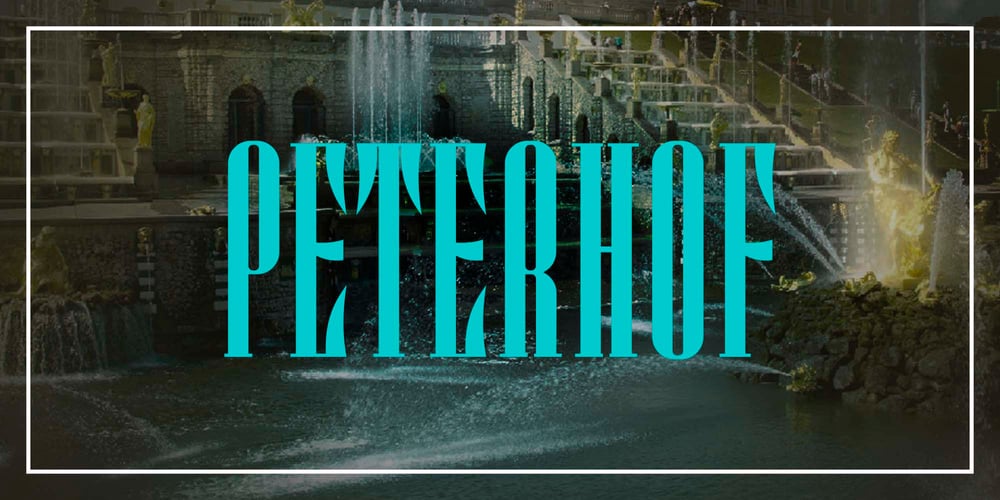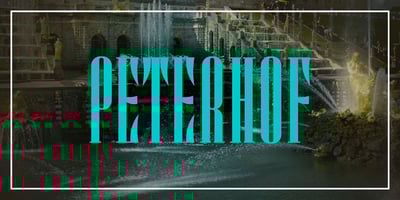
Peterhof
Peterhof font
Peterhof Font Family was designed by Marina Zuikova and published by Favorite Fonts. Peterhof contains 4 styles and family package options. Have you got a dream? I dream of visiting Peterhof.The palace and park ensemble with beautiful architecture, sculptures, and fountains. It is no less beautiful on the inside than on the outside. Huge halls, windows, columns, paintings. Everything is very refined, elegant, and beautiful. Looking at the photos, I enjoy and admire the views. They inspired me to create the “Peterhof” typeface.Elongated letters echo with tall columns and fountains. Serifs and playful glyph corners add grace to the font. It turned out to be refined, aristocratic, and at the same time mysterious and effective. I have created a whole family of “Peterhof” fonts from regular to bold italics for every taste and for every task.The “Peterhof” font will look great in headlines, advertising signs, posters, magazine pages, and prints. It can serve as the main focus of your compositions.